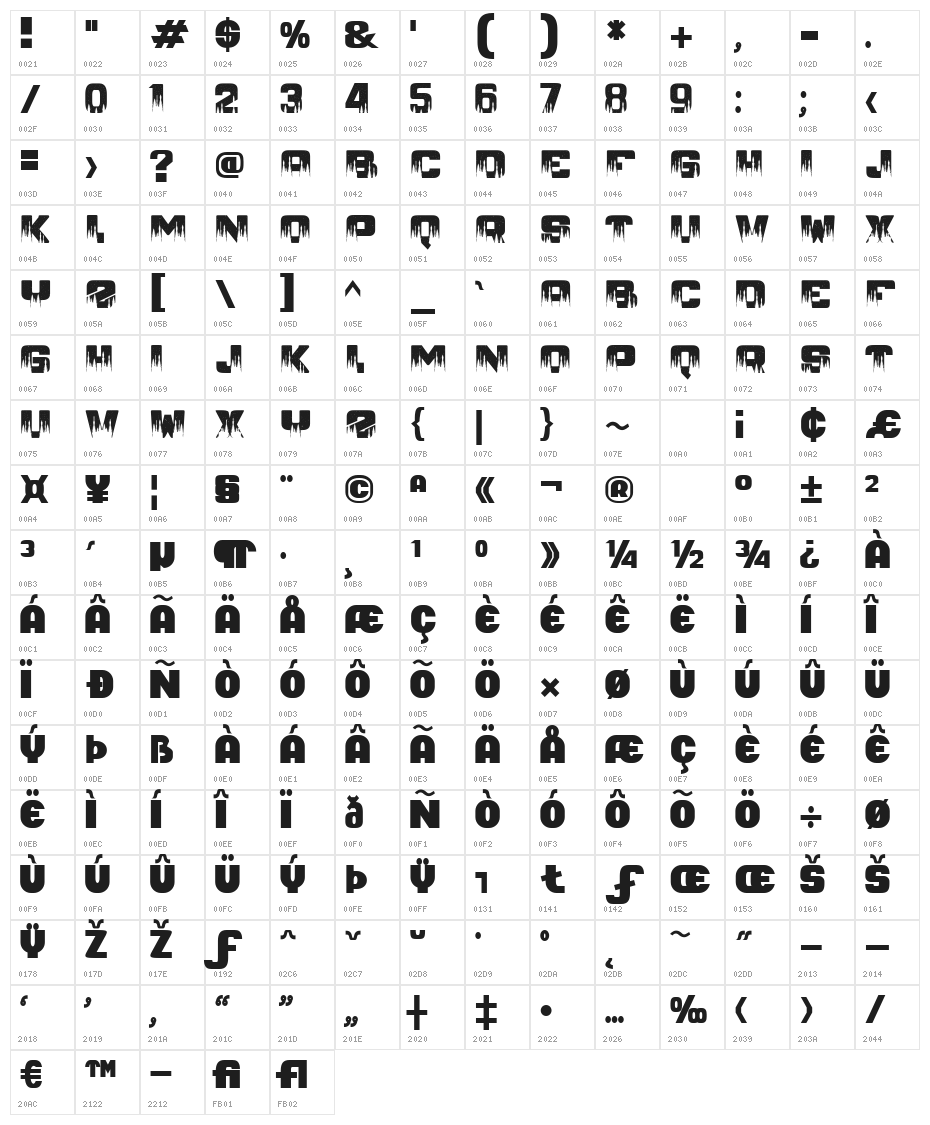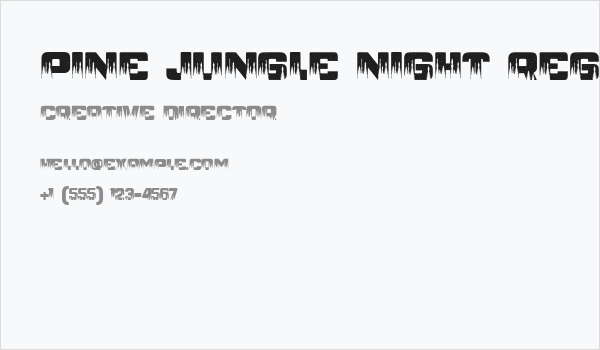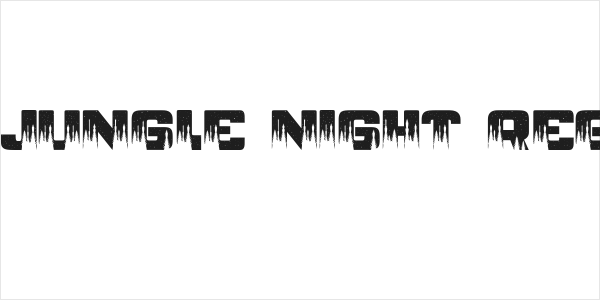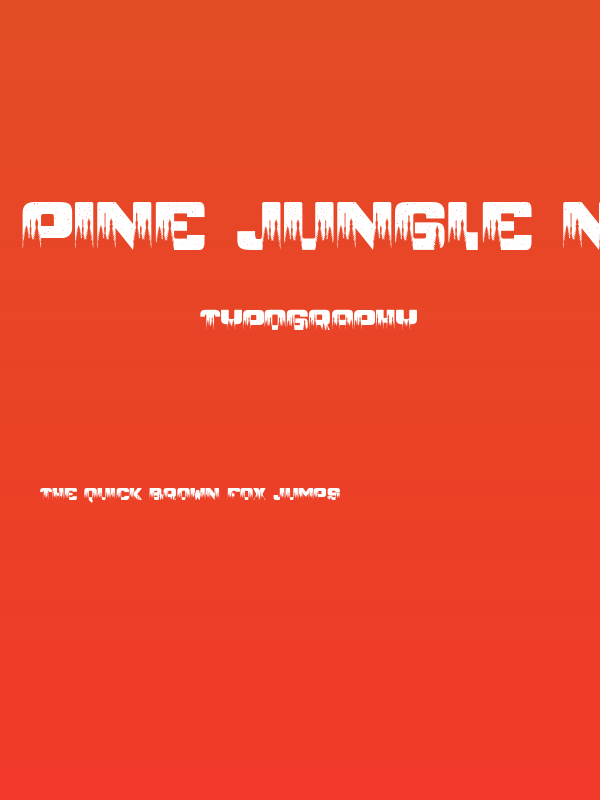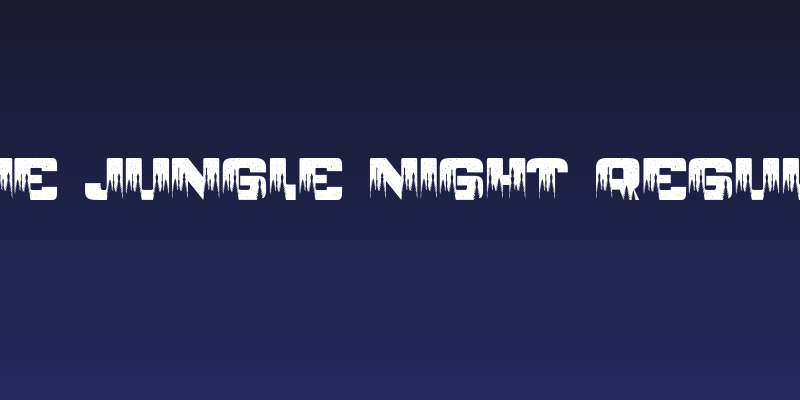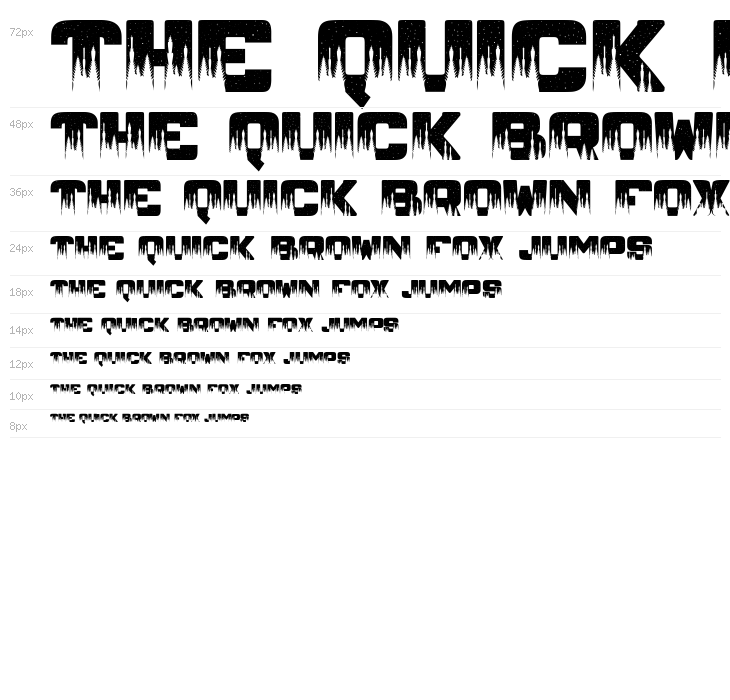
PINE JUNGLE NIGHT Regular Font
PINE JUNGLE NIGHT Regular Description
This font features a bold and dramatic style with a unique dripping effect that gives it a rugged, natural appearance. The characters are uppercase and lowercase with a consistent width, creating a cohesive look. The numbers and special characters maintain the same dripping aesthetic, adding to the overall theme. The font's design is reminiscent of natural elements, making it suitable for projects that require a wild or adventurous feel. The bold strokes and high contrast between the filled and unfilled areas enhance its visibility and impact.
| Proposed Projects | Ideal for outdoor-themed posters, adventure branding, Halloween events, and nature-inspired designs. |